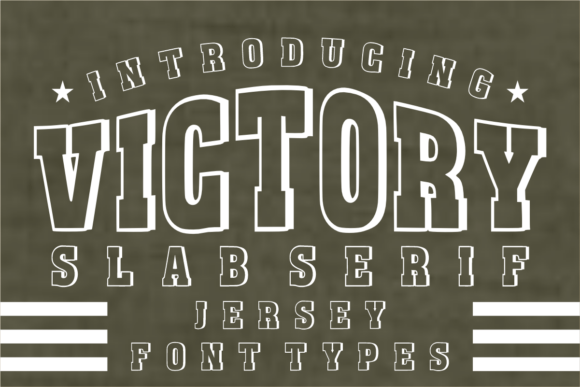
Adenman Posted 23 hours ago Share Posted 23 hours ago Victory is a powerful, blocky, and high-impact font designed to bring the spirit of the stadium to your creative projects. Featuring a classic “Jersey Font Types” aesthetic with clean slab serifs and a bold outline effect, this font is all about strength, achievement, and timeless varsity style. Giveaway Link –> https://www.creativefabrica.com/product/victory-32? phen0men4 and vhick 2 Quote Link to comment Share on other sites More sharing options...